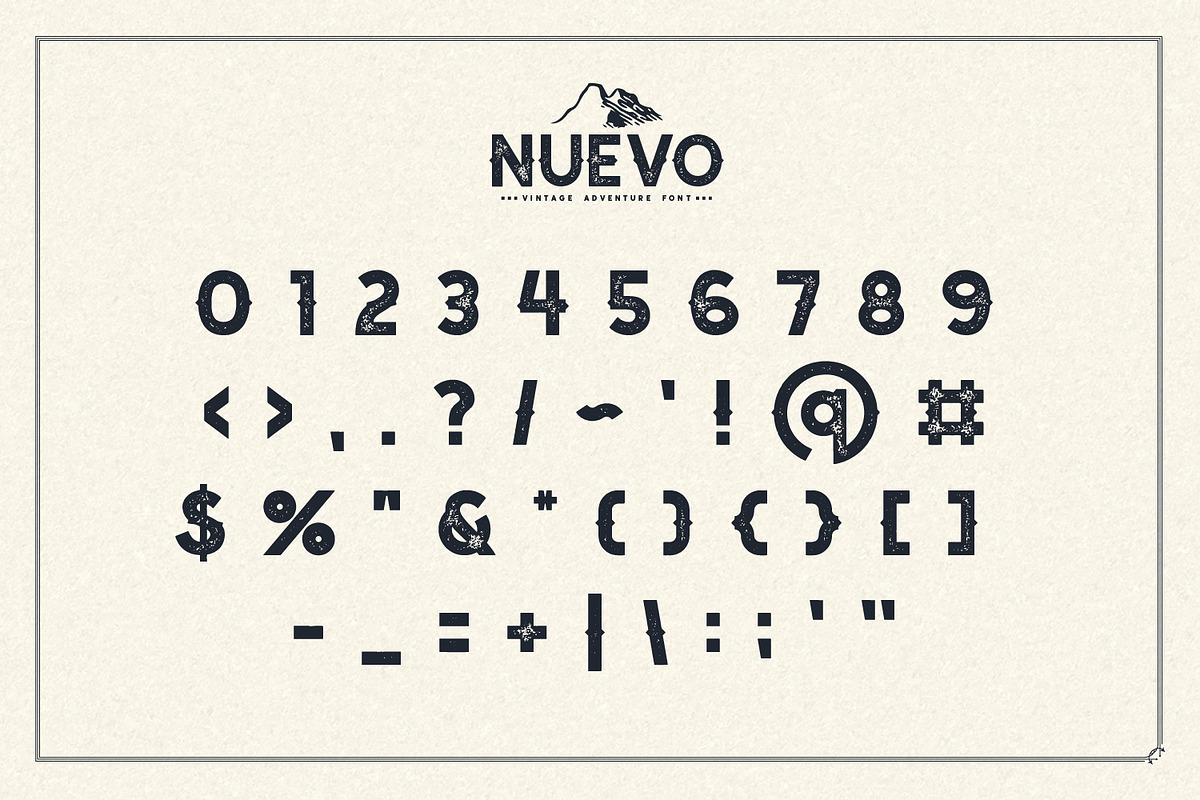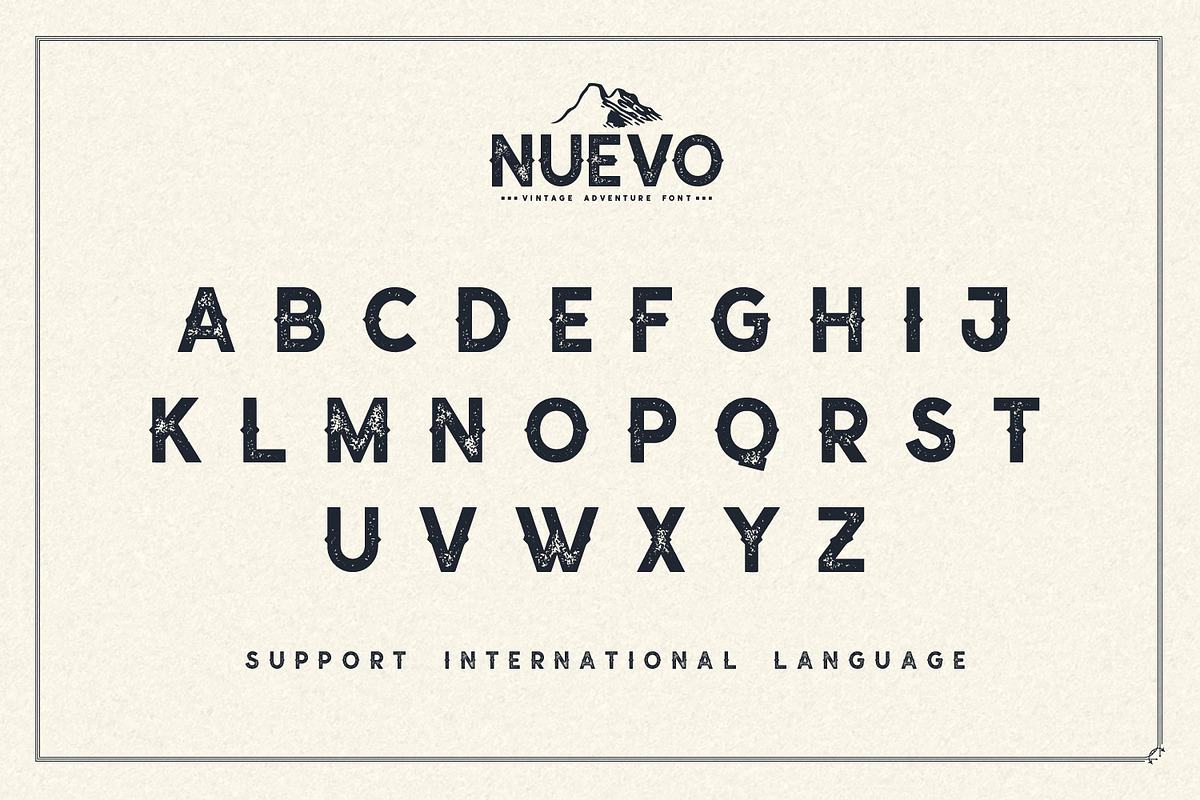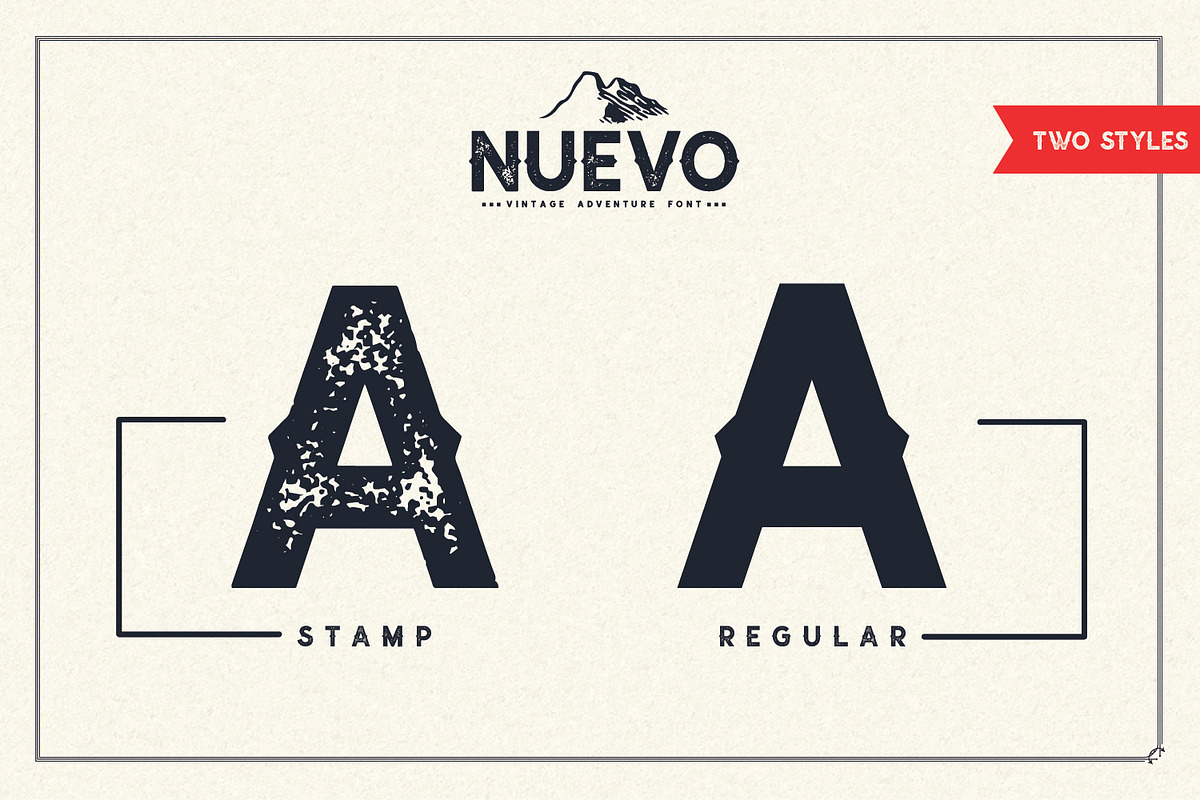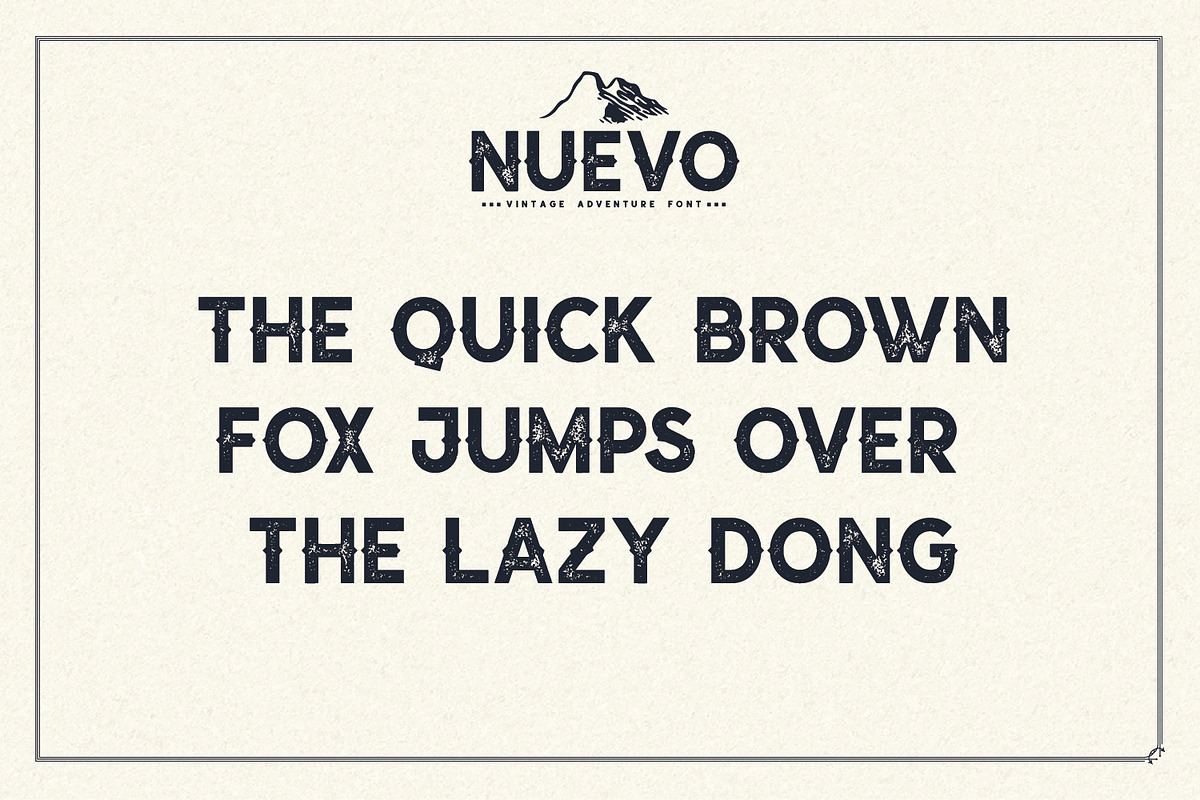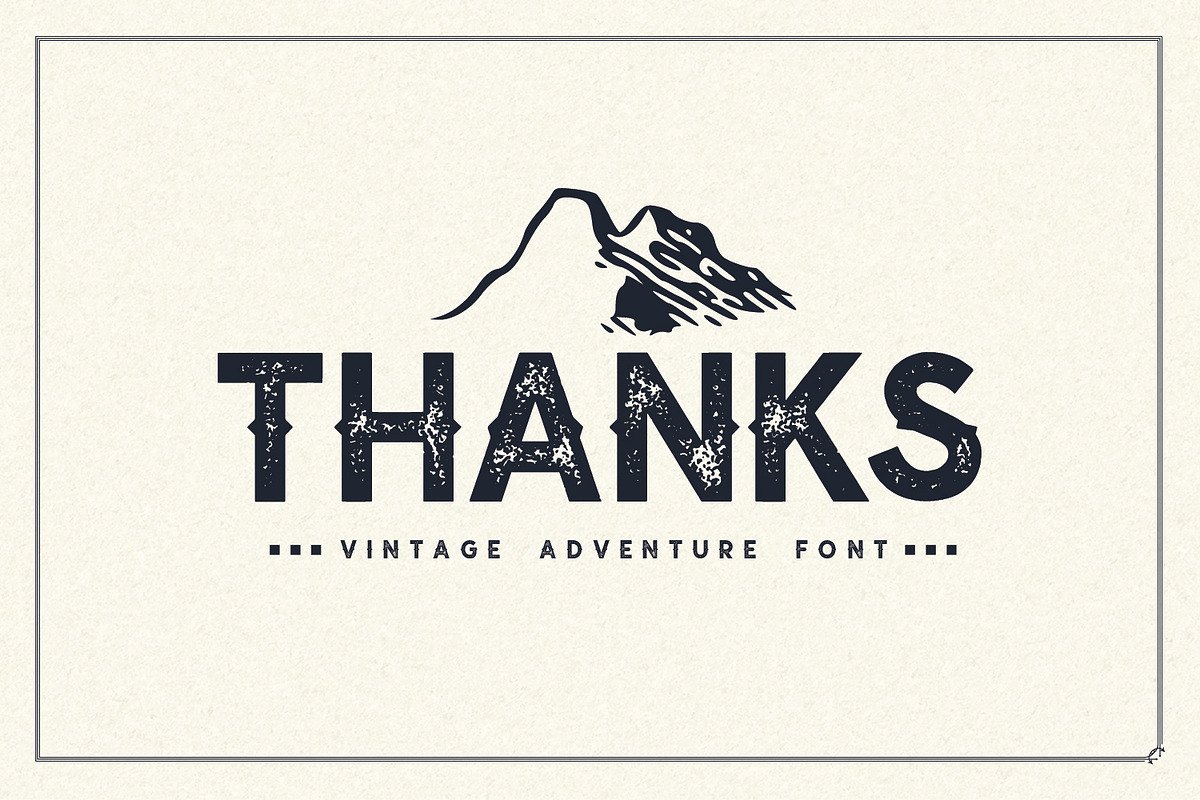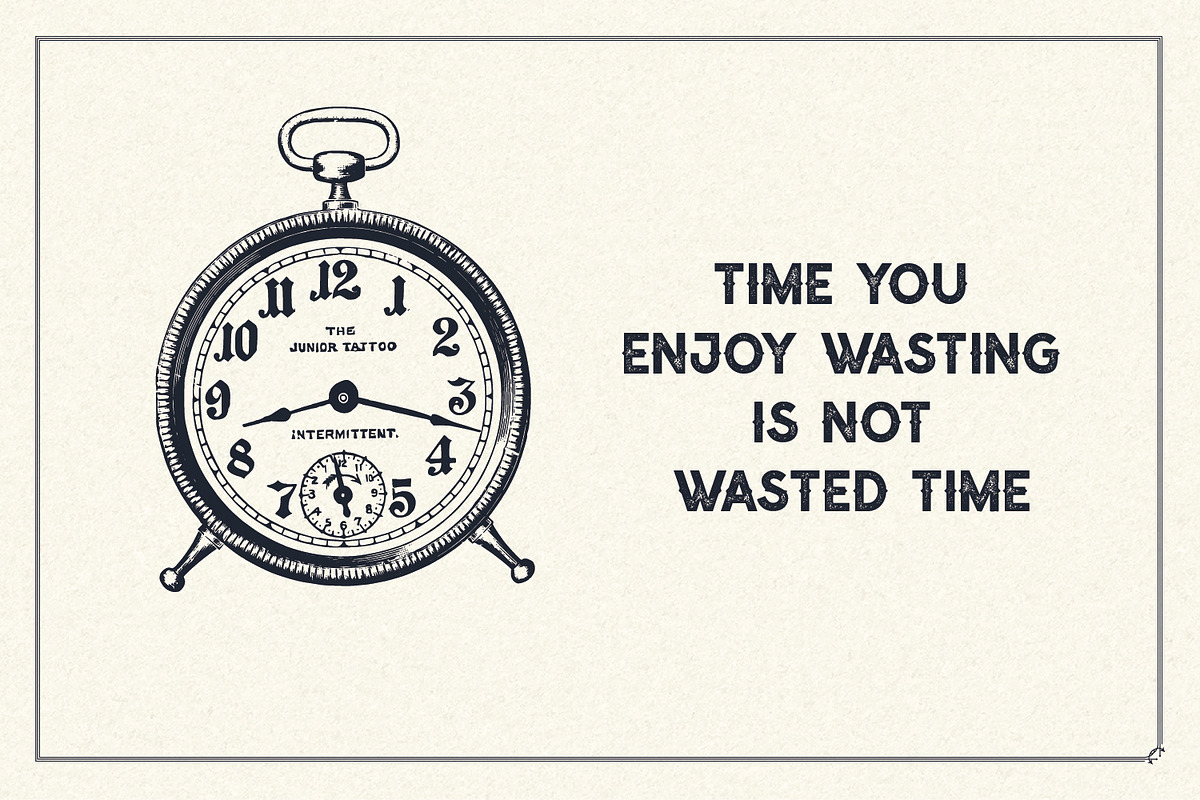
Nuevo - Vintage Adventure Font
Nuevo is a vintage display font including Regular and Textured versions. it's perfect for logos, name card, magazine layouts, invitations, headers, or even large-scale artwork. Atjeh includes 4 OTF & TTF files within the Zip folder.
Punctuation and Number
Multilingual Language